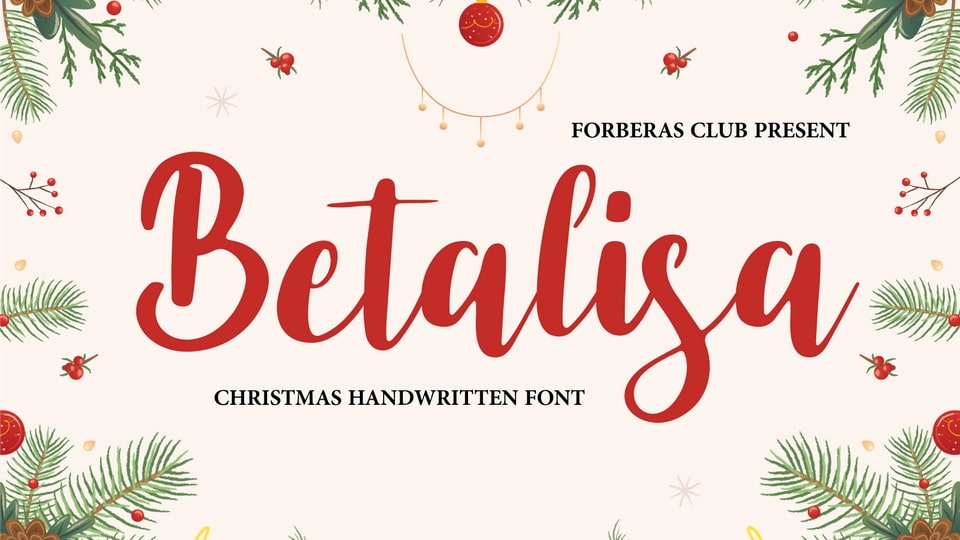
Feb 4, 2025Script & HandwrittenBetalisa Font Betalisa is a beautifully cursive handwritten font that embodies authenticity and charm in every character. Use it for birthday cards, invitations, banners, stationery, marketing materials, or more Font DetailsDesigned by: Forberas Type FoundryWebsiteLicense: Free for personal use Download Betalisa FontFile size: 15.26 KBCreated: February 16, 2025Updated: February 16, 2025 Download Explore similar fonts Honey Bear Font Anantha Font Romantic Diary Font Golden Authentic Font Callient Font Natalie Caydence Font # Calligraphy# Christmas# Hand-drawn# Handwriting# Pretty More fonts by Forberas Type FoundryCalinea FontHarmonster FontBlasticia FontDrac Tombstone FontHorror Corpse FontCurly Babe FontLemy Butter FontBarisme Font